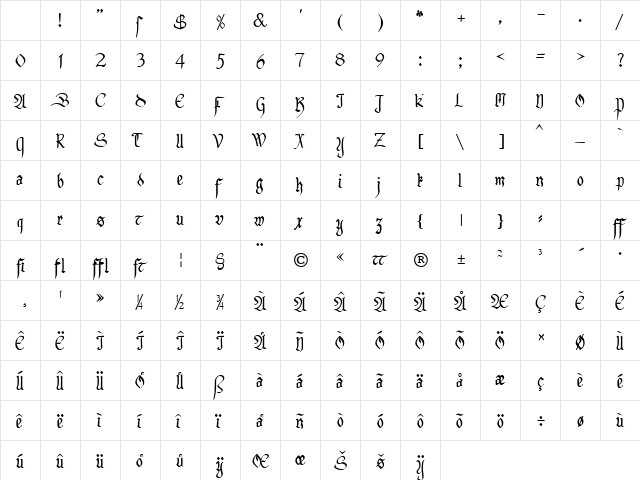
Complete MA Gotbuch DB Normal glyph index. Displaying only characters natively supported by MA Gotbuch DB Normal font.
MA Gotbuch DB is a composed and adaptable typeface that performs quietly and consistently across a wide range of design contexts.